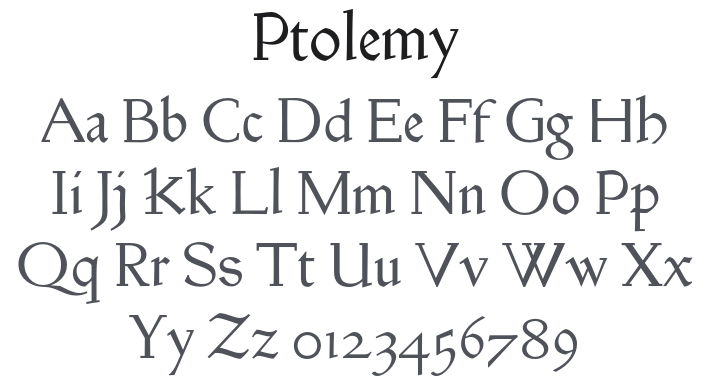
Ptolemy Font
About Ptolemy
Ptolemy, designed in Chelsea by St John Hornby, Sidney Cockerell and Emery Walker, cut in 18 pt by Edward Prince for Cervantes’ Don Quixote. Published by the Ashendene Press in 1927. The type used until 1935 is a revival of Lienhart Holl’s cut for Ptolemaeus’ Cosmographia printed in 1482 in Ulm. Type design workshop at HEAR Mulhouse, March 2015.